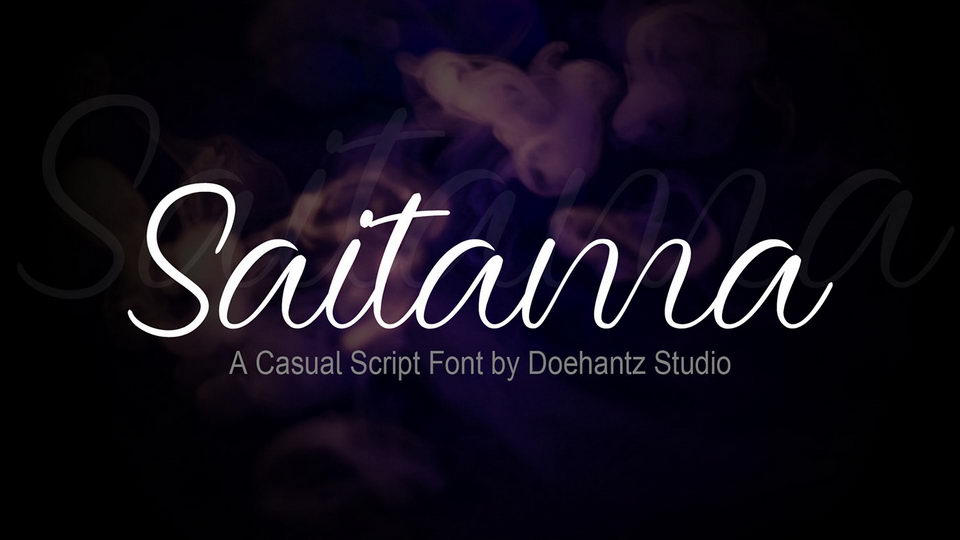
Download Saitama font, a casual script with an elegant natural look. Saitama is great for posters, apparel, product packaging, titles, magazines, and much more.
Designer: Doehantz Studio